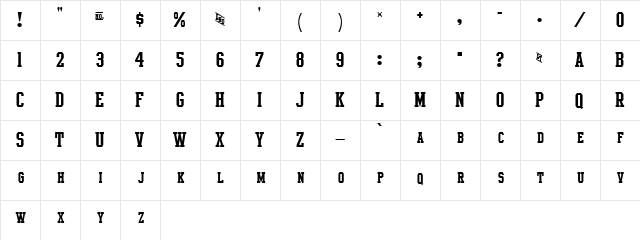
Intramural Small Caps JL Regular
| Designer | Jeff Levine from a Ray Larabie original |
Design Context for Intramural Small Caps JL Typeface
Intramural Small Caps JL takes a measured approach to typography — its balanced proportions and neutral character make it a reliable workhorse for both digital and print work.